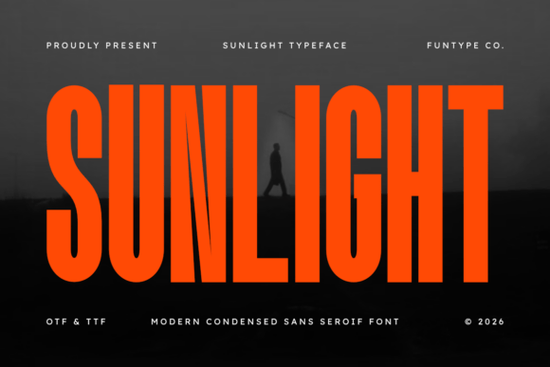
Sunlight Font is a standout choice for anyone looking to add a strong visual presence to their designs. This bold and ultra-condensed sans serif font is ideal for creating eye-catching headlines, modern posters, and impactful branding materials. Its tall structure and compact width make it perfect for situations where space is limited but style needs to shine. Whether you're working on a logo, social media graphic, or print project, Sunlight Font delivers a clean and confident look that commands attention.
Designed with versatility in mind, Sunlight Font works well across a range of creative projects. It’s especially popular among designers and small businesses that need a reliable font for high-impact advertising, sports graphics, and album covers. The font’s minimalist yet powerful aesthetic ensures it stands out without overwhelming the design. For those who want to experiment with different styles, Sunlight Font pairs well with other fonts in the Creative Fabrica collection, including the Massive Geometric Bundle and Blackroad Font.
What Makes Sunlight Font Unique?
Sunlight Font distinguishes itself through its bold and ultra-condensed structure. Unlike more traditional sans serifs, this font is designed to be both tall and narrow, making it an excellent choice for tight layouts. Its clean lines and consistent stroke widths give it a professional feel, while the condensed shape adds a modern edge. This combination makes it a go-to option for designers who want to make a statement without sacrificing readability.
One of the key benefits of Sunlight Font is its adaptability. It can be used in both digital and print formats, ensuring consistency across different mediums. The font is also available in multiple weights, allowing for greater flexibility in design work. Whether you're creating a simple logo or a complex layout, Sunlight Font offers the precision and clarity needed to bring your vision to life.
Best Uses for Sunlight Font
Sunlight Font is particularly effective for headlines and titles where impact is essential. Its bold nature makes it ideal for marketing materials, such as flyers, banners, and advertisements. For example, a sports team might use Sunlight Font for a poster promoting an event, leveraging its strong visual presence to grab attention. Similarly, a music band could use it for an album cover, adding a modern and dynamic feel to their branding.
Small businesses and print-on-demand sellers often find Sunlight Font useful for creating branded merchandise. T-shirts, mugs, and stickers featuring this font can stand out in a crowded market. Its simplicity also makes it easy to pair with other design elements, such as icons or illustrations, without clashing. For creative hobbyists, Sunlight Font offers a way to elevate personal projects, from handmade cards to DIY crafts.
When choosing a font for your next project, consider how it will fit into your overall design strategy. Sunlight Font is a strong choice for any situation where boldness and clarity are important. Its clean lines and modern shape ensure it remains relevant across different design trends and applications.
Before finalizing your design, test Sunlight Font in different sizes and contexts to see how it performs. This will help you determine if it meets your specific needs and enhances your visual message. Whether you're working on a professional project or a personal creative endeavor, Sunlight Font offers a reliable and stylish solution.